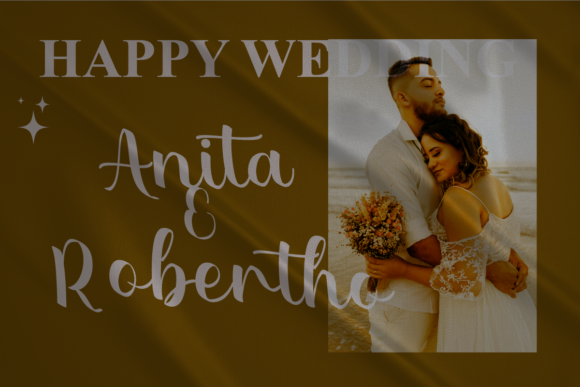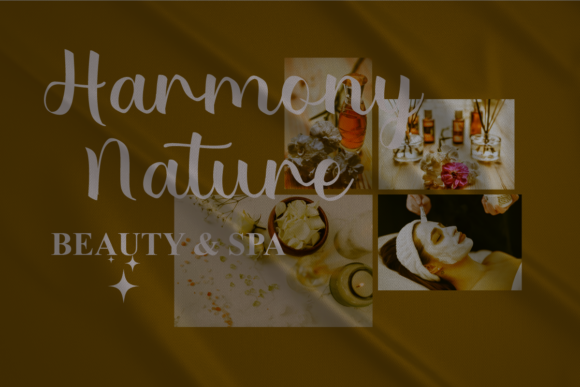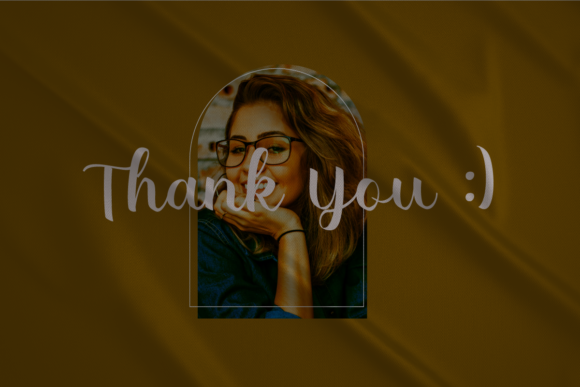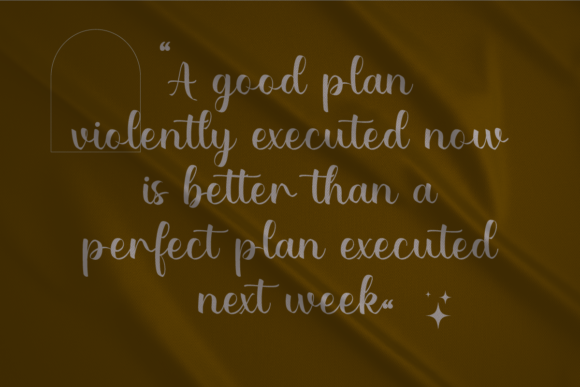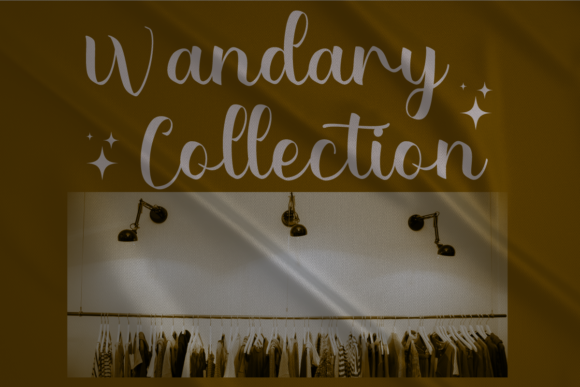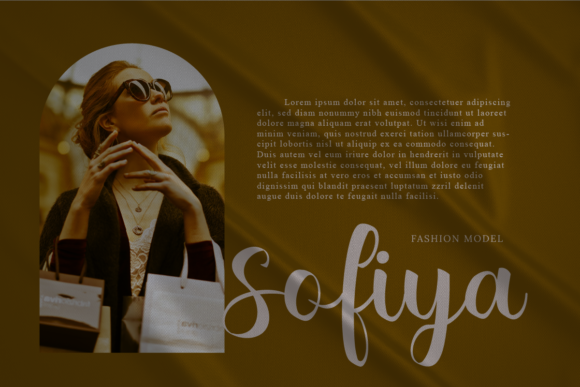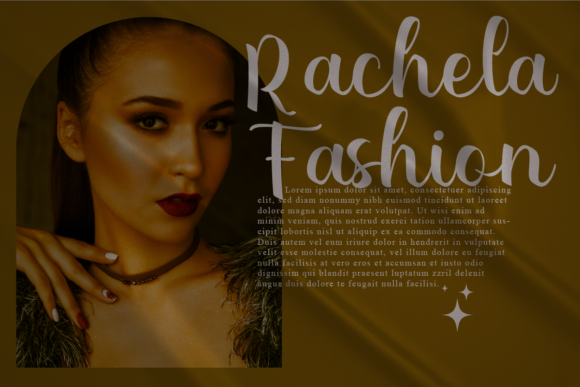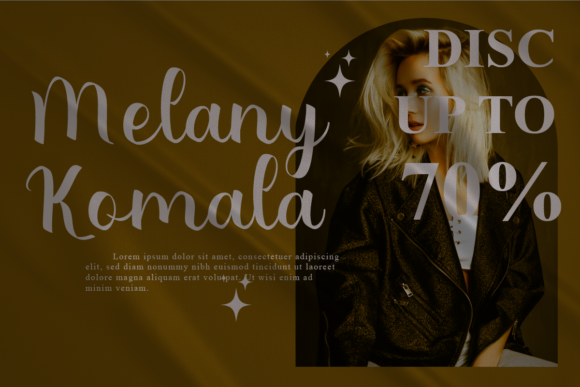
Bethany Ellie Font
Bethany Ellie is a cute and charming handwritten font. Whimsical and a bit quirky, this font will brighten up each of your designs. Add it confidently to your projects, and you will love the results.